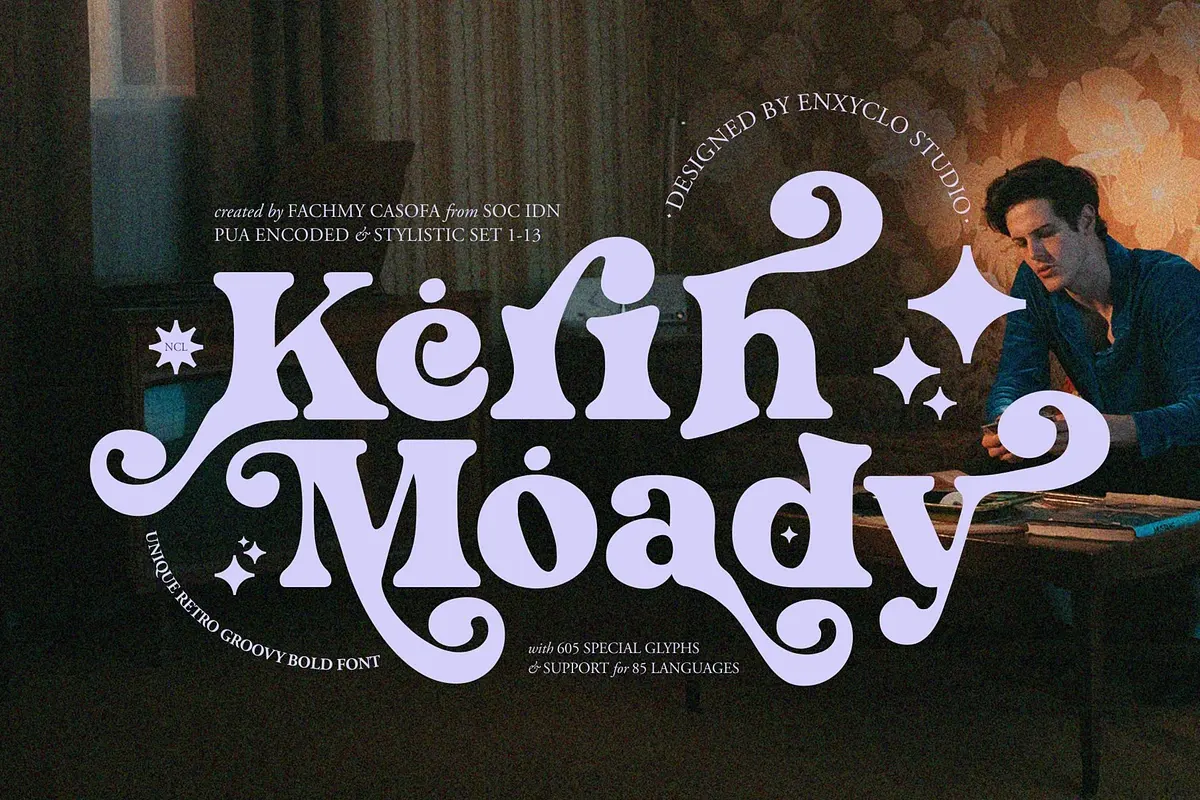
NCL Kerih Moady Font Free Download is a retro groovy typeface bursting with bold curves, funky flair, and vintage soul. Inspired by the 70s era, this font is perfect for posters, album covers, fashion branding, social media graphics, and anything that needs a touch of nostalgic charm with a modern twist.
Its bubbly letterforms and psychedelic vibe make every word pop with energy and personality. Whether you're channeling flower-power aesthetics or building a trendy vintage brand, NCL Kerih Moady brings the funk. NCL Kerih Moady Font Free Download lets you try it out for personal use before purchasing a commercial license.
Turn up the retro vibes with NCL Kerih Moady — the groovy display font that’s all about bold expression and vintage cool.